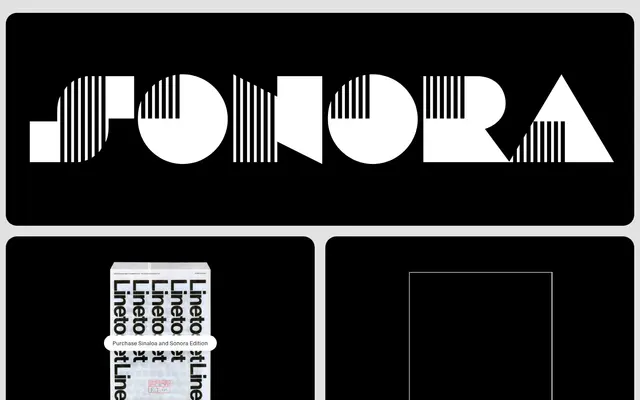
LL Sonora
Lineto · Rosmarie Tissi, Céline Odermatt · 2024
A digital revival of Rosmarie Tissi's 1972 experimental alphabet, reconstructed from her original drawings and expanded from roughly fifty characters to over two hundred by type designer Céline Odermatt.
Originally drawn in 1972 and first commercially released through Zurich typesetting firm Englersatz after 1978, Sonora is defined by open counters and parallel-line construction that reads as a deliberate rejection of the Swiss Style conventions embodied by Helvetica. Tissi reclaimed her rights to the related Sinaloa from Monotype in 2020, then initiated the Lineto collaboration in 2023 to produce fully authorised digital versions of both alphabets. The revival expands the character set to over two hundred glyphs, with reworked diacritics and subtle optical adjustments to the stripes, and is also available as a limited-edition dry-transfer lettering sheet.
An experimental headline alphabet characterised by open counters and parallel-line construction that deliberately departs from Swiss Style rationalism; its systematic stencil-like lettershapes place it firmly in the display category.